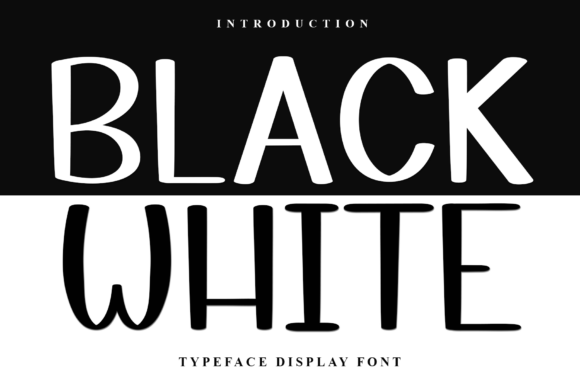
The Ultimate Font for Bold Statements: A Deep Dive into Black White Font
I’ll never forget the time I was working on a branding project for a trendy new coffee shop. My client wanted a font that was bold, yet playful; something that would stand out on their packaging and advertising materials. After hours of scouring font websites and trying out different options, I stumbled upon Black White Font. It was love at first sight! ✨ The clean lines, subtle irregularities, and high contrast made it the perfect fit for the project. In this article, I’ll share my experience with Black White Font, its features, and how to make the most of it in your designs.
An Honest Review of Black White Font
- ✅ Versatility: Black White Font is perfect for a wide range of design projects, from headlines and posters to logos and packaging.
- ✨ Unique Character: The font’s quirky proportions and handcrafted feel add a creative edge to any design.
- 🔍 Readability: Despite its bold presence, Black White Font remains highly readable, even at smaller sizes.
- 🎨 Monochromatic Inspiration: The font’s simple, black-and-white inspiration makes it easy to pair with a variety of colors and graphics.
While Black White Font is an excellent choice for many design projects, there are a few things to keep in mind: 🤔
- ⚠️ Overuse: Due to its bold presence, Black White Font can be overwhelming if overused. Balance it with simpler fonts or negative space to avoid visual fatigue.
- ⚠️ Kerning: As with any font, kerning might need to be adjusted for optimal results, especially when using all-caps or pairing with other fonts.
The Story Behind Black White Font
Black White Font was designed with the goal of creating a modern, display typeface that balances bold presence with playful charm. Inspired by the simplicity of black-and-white photography, the font’s creator aimed to craft a clean, yet handcrafted feel that would add a creative edge to any design. The result is a versatile font that’s perfect for a wide range of applications, from headlines and posters to logos and packaging.
| What makes Black White Font unique? | Its tall, clean letterforms with slightly irregular curves and subtle width variations give it a handcrafted, organic feel. |
| Is Black White Font suitable for body text? | While it’s primarily designed for display use, Black White Font can be used for body text in certain contexts, such as short paragraphs or captions. |
| Does Black White Font support OpenType features? | Yes, Black White Font supports OpenType features, including stylistic alternates, glyphs, and more. |